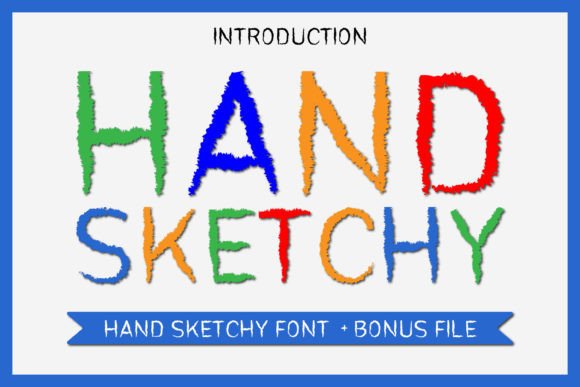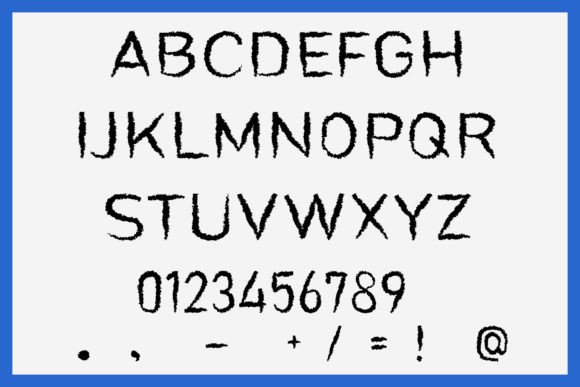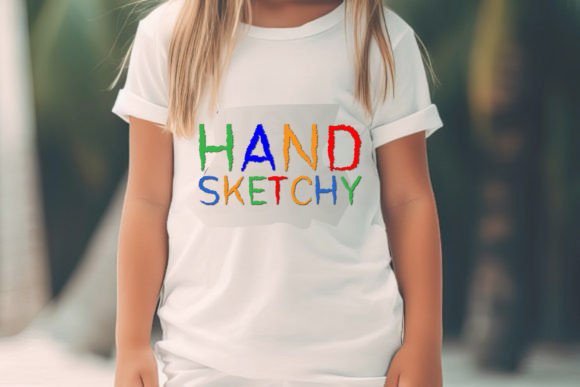
Introduction to Hand Sketchy Font
Introducing a vibrant splash to your creative projects, our color font embodies joy and whimsy that is bound to elevate your design endeavors.
An absolute fit for branding initiatives, packaging designs, riveting logotypes, and gripping headlines, it also adds a sprinkle of charm to wedding invitations and similar creatives Embrace and experience the transformative power of this uplifting font in your designs.